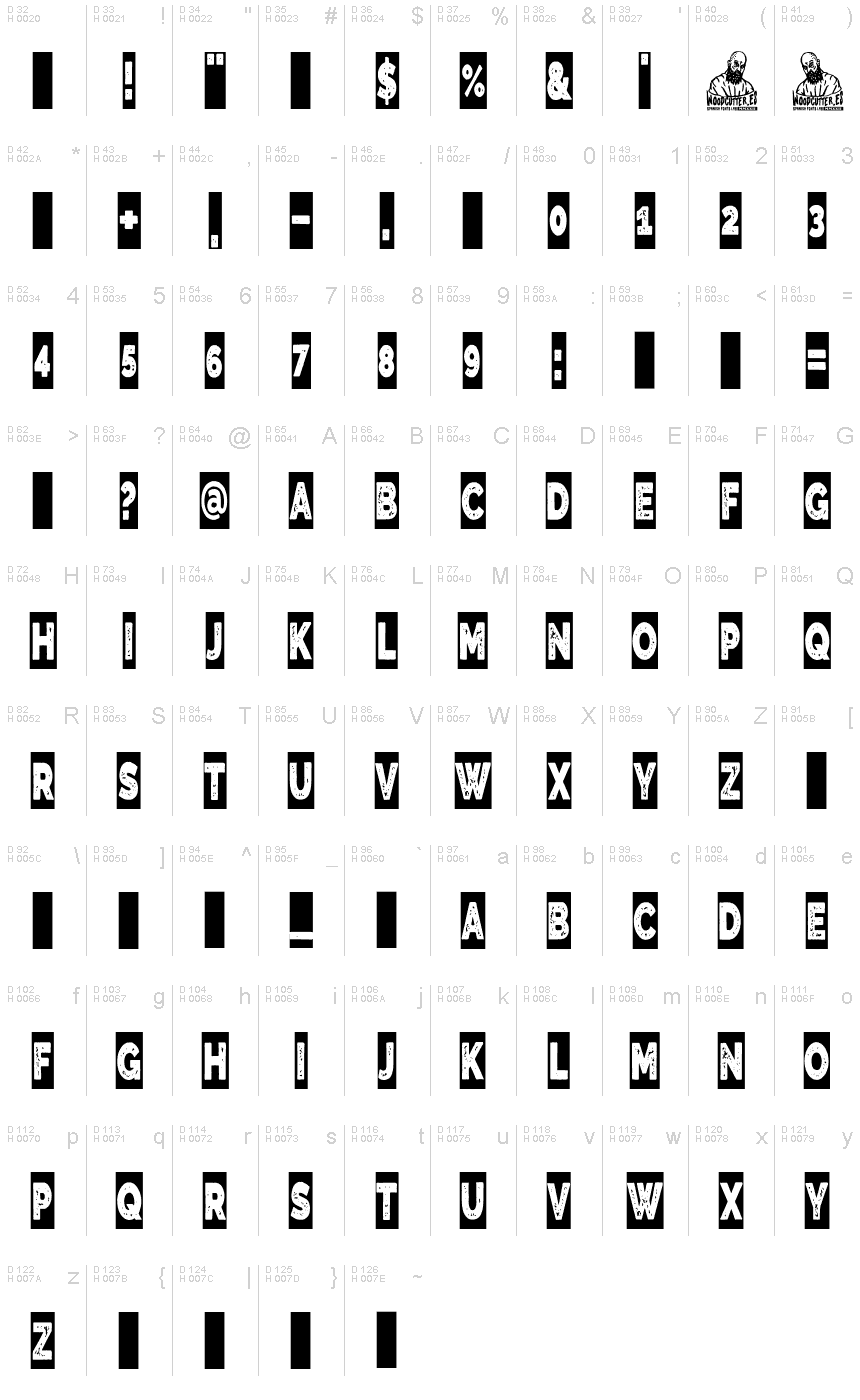
The Blue Alert
The Blue Alert by Woodcutter is a bold, condensed display font with an eroded style that adds a unique edge to any project. Its negative design gives it an edgy feel, perfect for brands and projects looking to add a touch of rebelliousness. This typeface is suitable for a variety of projects, from music posters and album covers to fashion editorials and streetwear branding. The Blue Alert can also be used for packaging designs or event flyers in need of attention-grabbing typography. With its condensed width and bold weight, this font will make sure your message stands out in any setting.